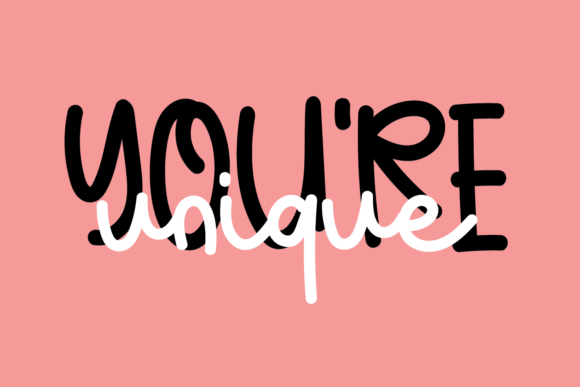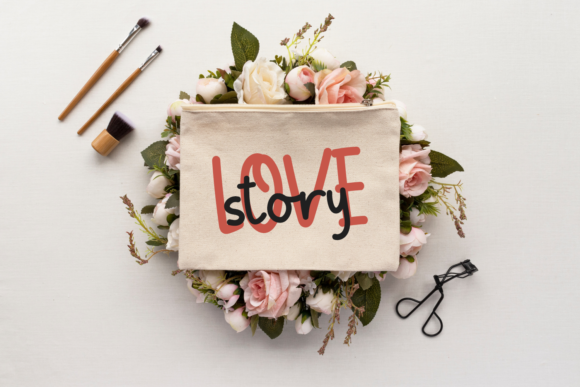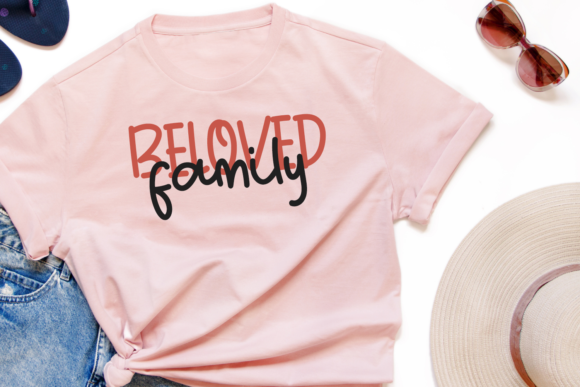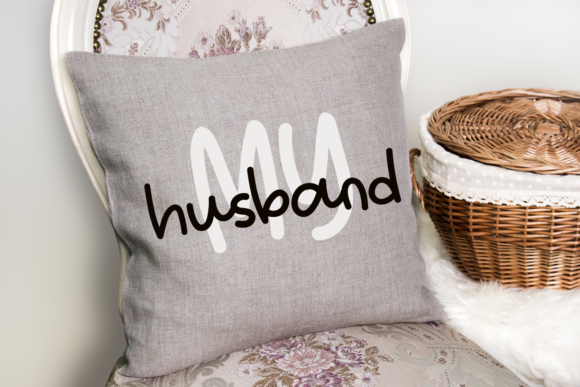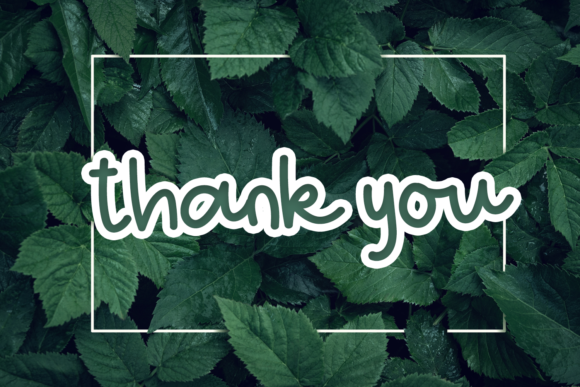
Hello Monday Font
About Hello Monday Font
Hello Monday is a simple, friendly and natural handwritten font. It works great on a variety of creative ideas related to children, school or pretty much anything that requires a bright touch.